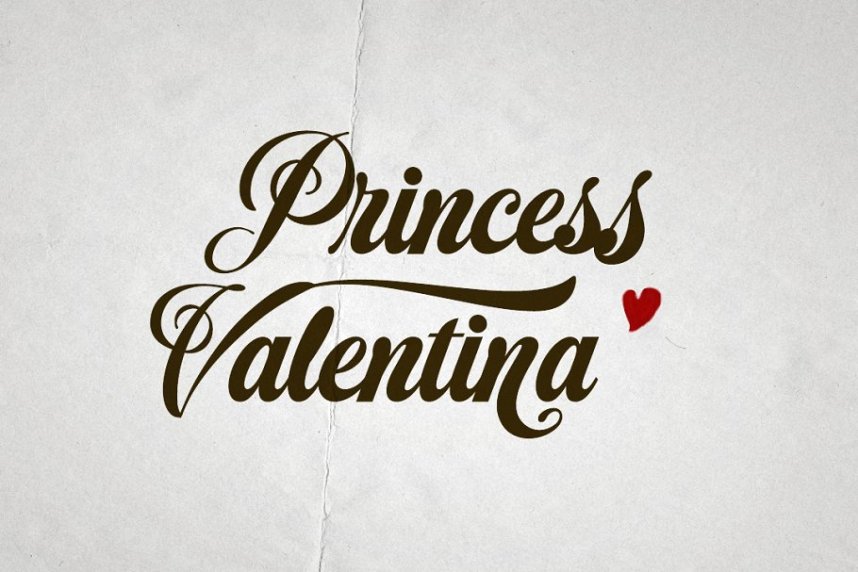
Starella Script Font
Starella Script Demo Font
Hello there:) Starella Font is a decorative typeface created by Mans Greback. It is bold, beautiful and works perfectly for majestic logotypes and graphics. Starella Script also includes alternate and swash letters, to give extra flexibility. Use underscore to create a swash, example: S_tarella.
Starella fonts are fonts that are very suitable for use in a variety of uses. Starella fonts can be used in various uses such as watermarks, signature and signature logos, business cards, brand names, and many more.